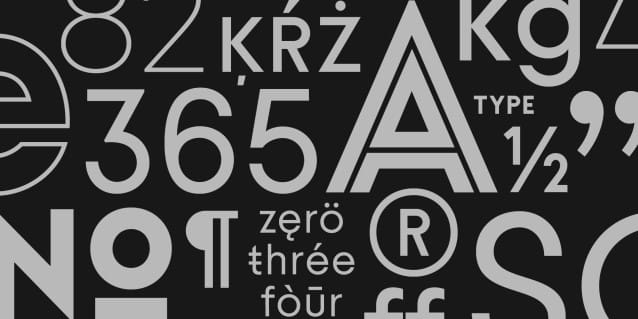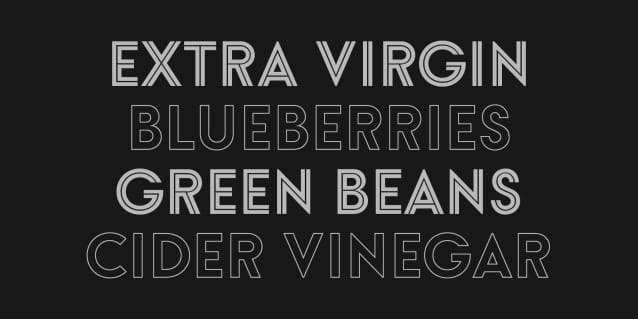
Noord Font Family
Noord Font Family, designed by Jaakko Vanto, is a geometric sans serif font, loosely inspired by 1920s classics such as Paul Renner’s Futura, favoring clear shapes with low contrast. It includes 8 weights from Thin to Extra Bold, each with corresponding italics. To add variety and typographic spice, the Noord font family also includes Inline and Outline styles.